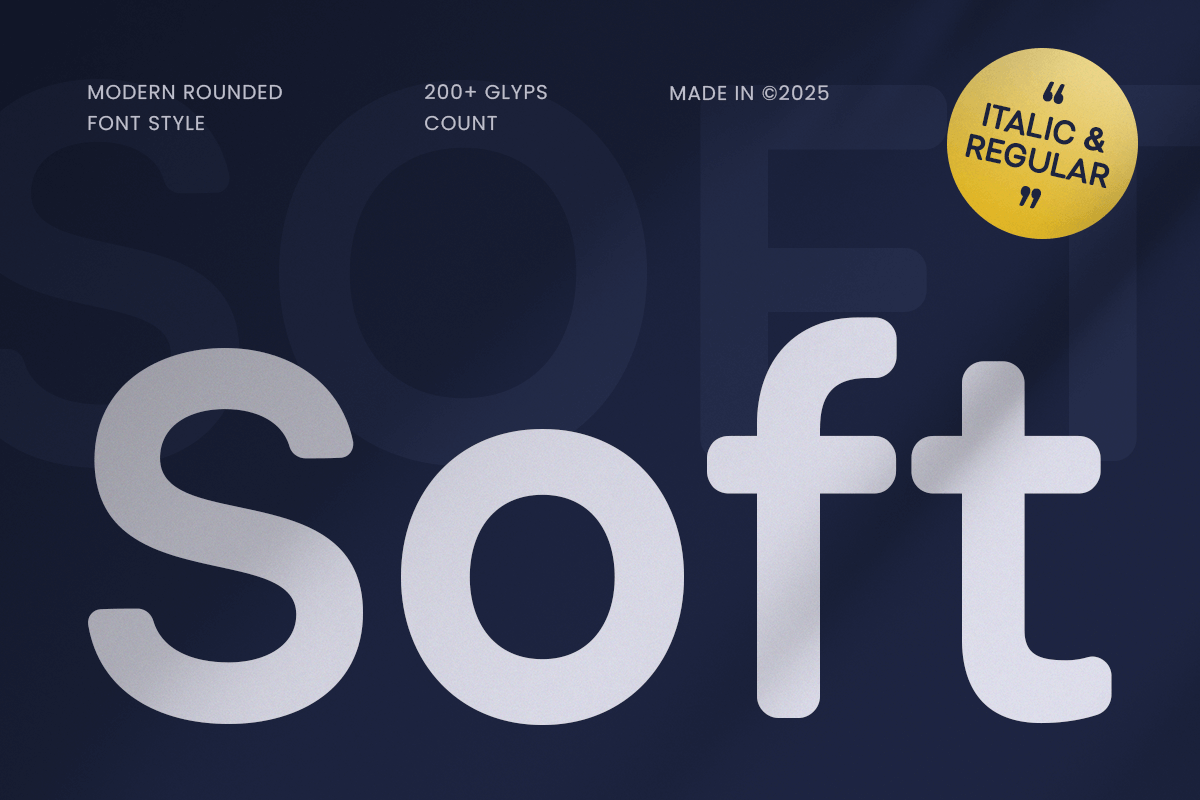
Soft
-Modern Rounded FontSoft - Modern Rounded Font
Soft font is a modern rounded font designed for sleek, friendly, and contemporary designs. With its smooth curves and minimalist aesthetic, this typeface creates a clean and approachable look, perfect for branding, UI/UX interfaces, tech startups, lifestyle products, and creative marketing.
The rounded edges and balanced proportions give Soft font a welcoming yet professional feel, making it ideal for mobile apps, futuristic logos, product packaging, social media graphics, and children’s designs. Its soft font, flowing letterforms enhance readability while maintaining a modern and stylish appearance.
Whether you're designing for technology, wellness, or modern advertising, Soft font ensures a polished and contemporary visual identity.
Soft Font - Modern Rounded Font Features:
Smooth, rounded, and modern sans-serif design
Ready with Regular & italic version
Perfect for branding, UI/UX, and digital projects
Punctuation, numbers, and symbols included
Uppercase and lowercase letters
OpenType features for added versatility
Multilingual support for: Afrikaans, Albanian, Basque, Breton, Catalan, Croatian, Czech, Danish, Dutch, English, Estonian, Finnish, French, Galician, German, Hungarian, Icelandic, Indonesian, Irish, Italian, Latvian, Lithuanian, Luxembourgish, Maltese, Norwegian, Polish, Portuguese, Romanian, Slovak, Slovenian, Spanish, Swedish, Turkish, Welsh, and more.
Achieve a modern, friendly, and professional look with Soft font—the perfect rounded font for clean and contemporary designs.